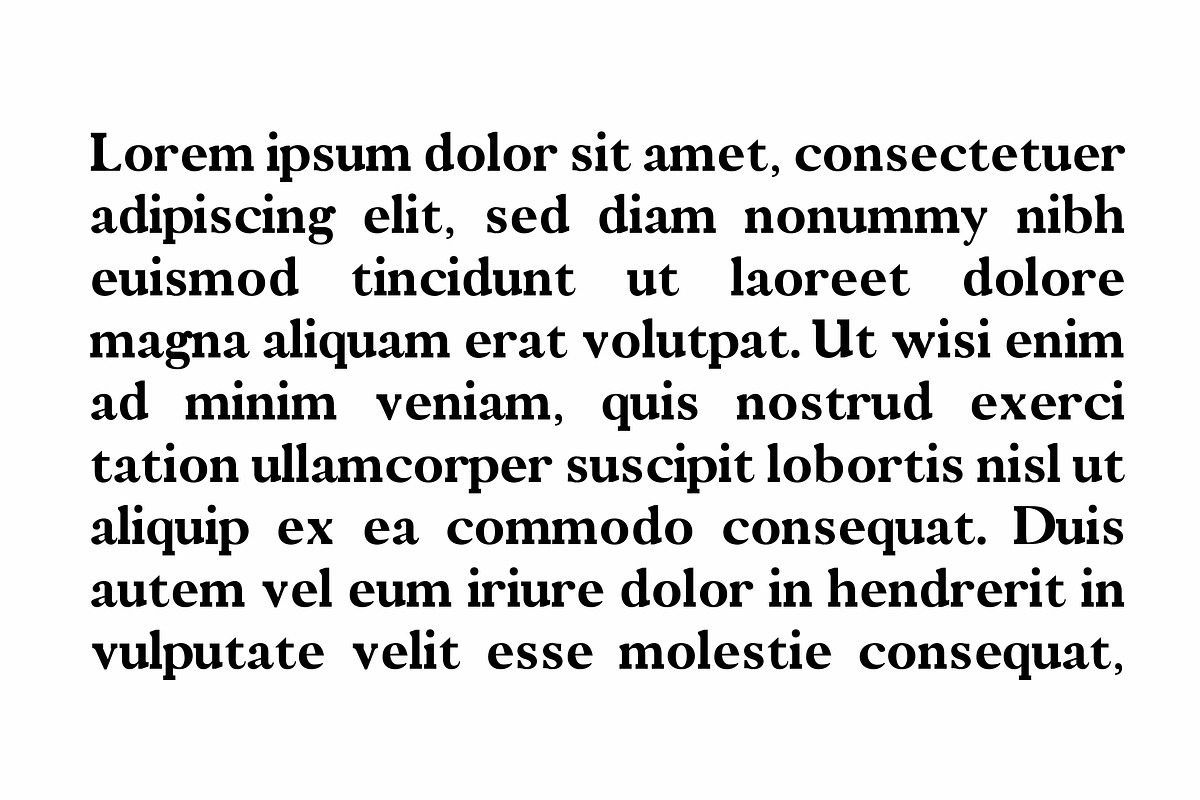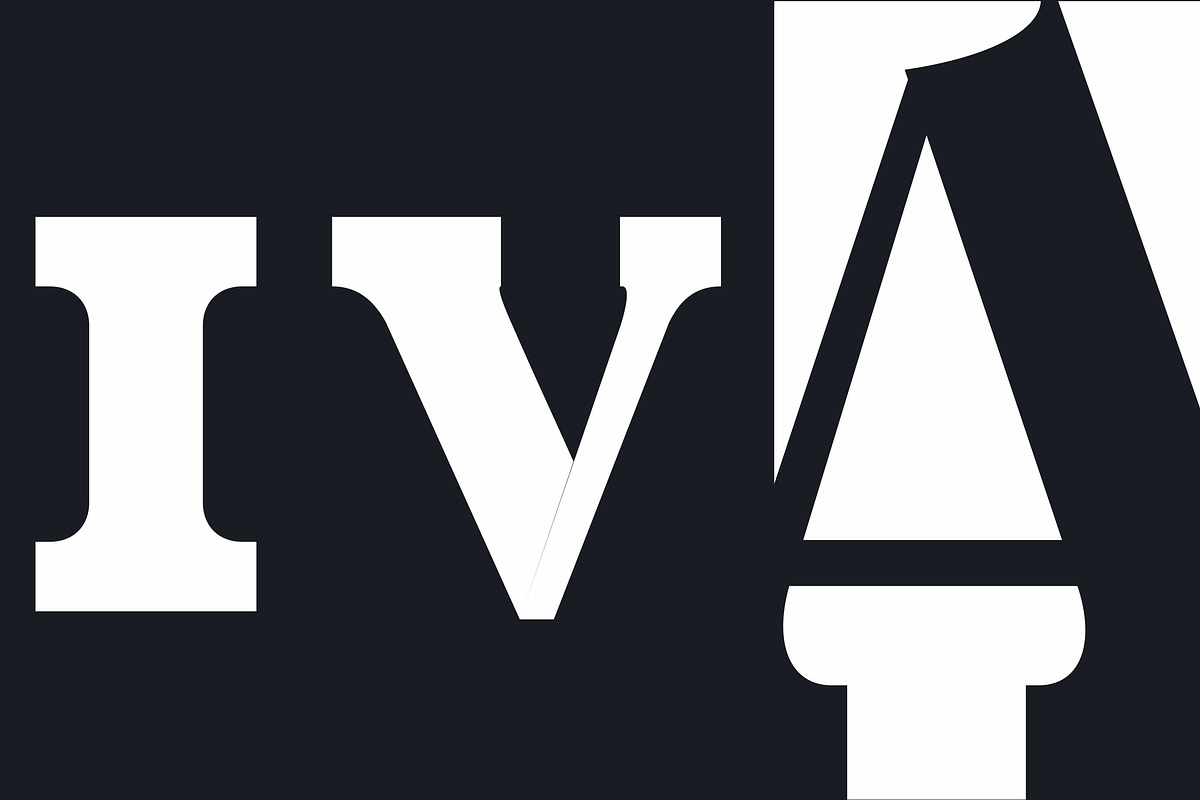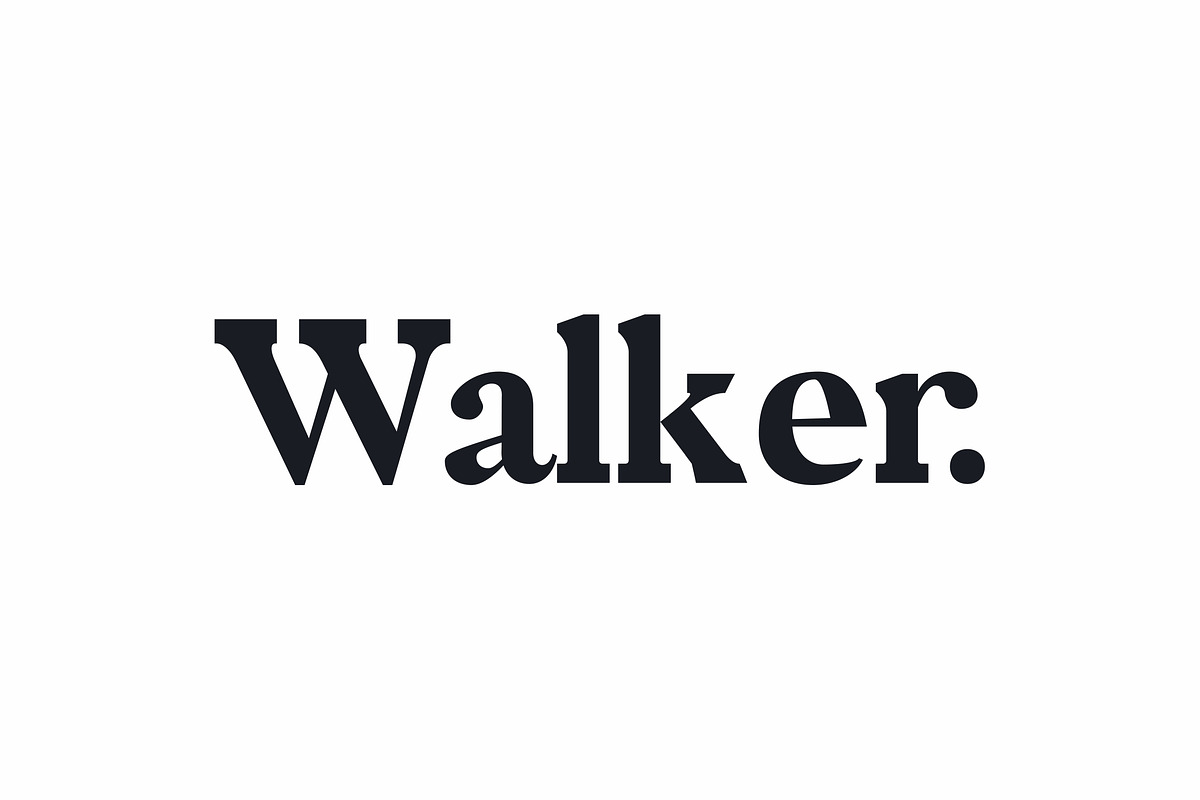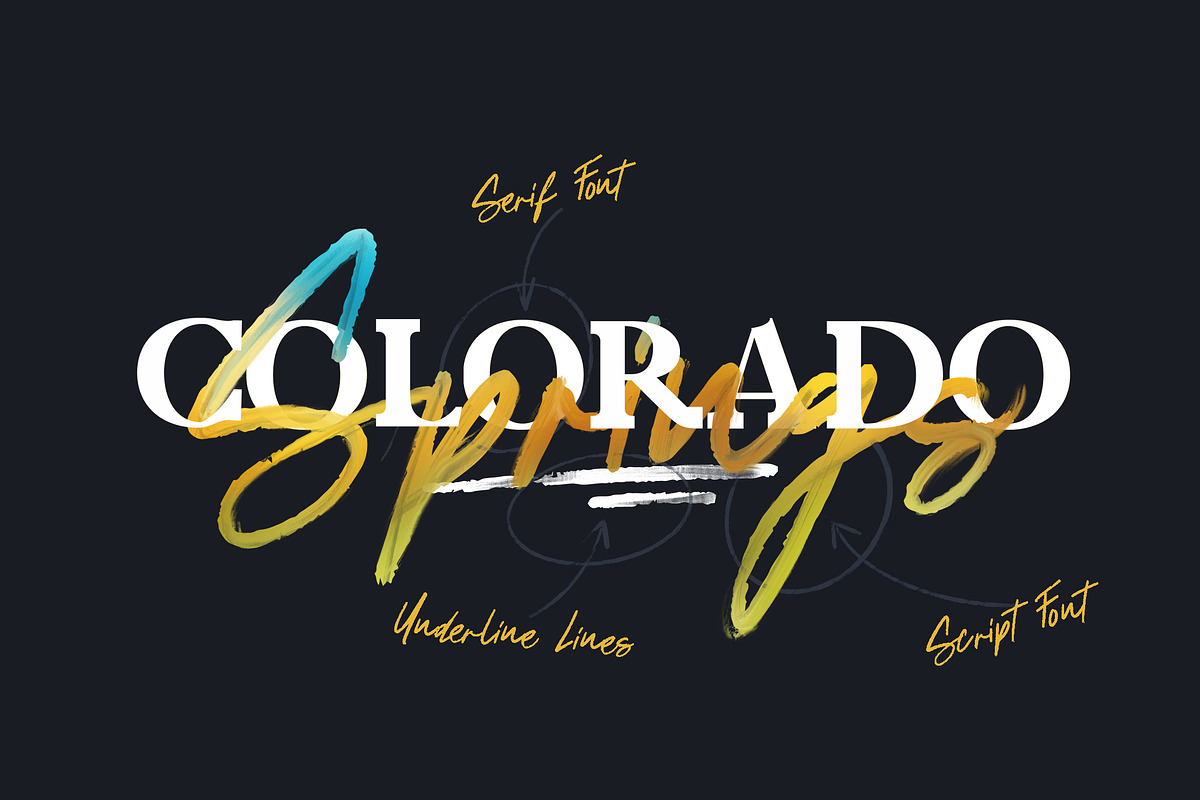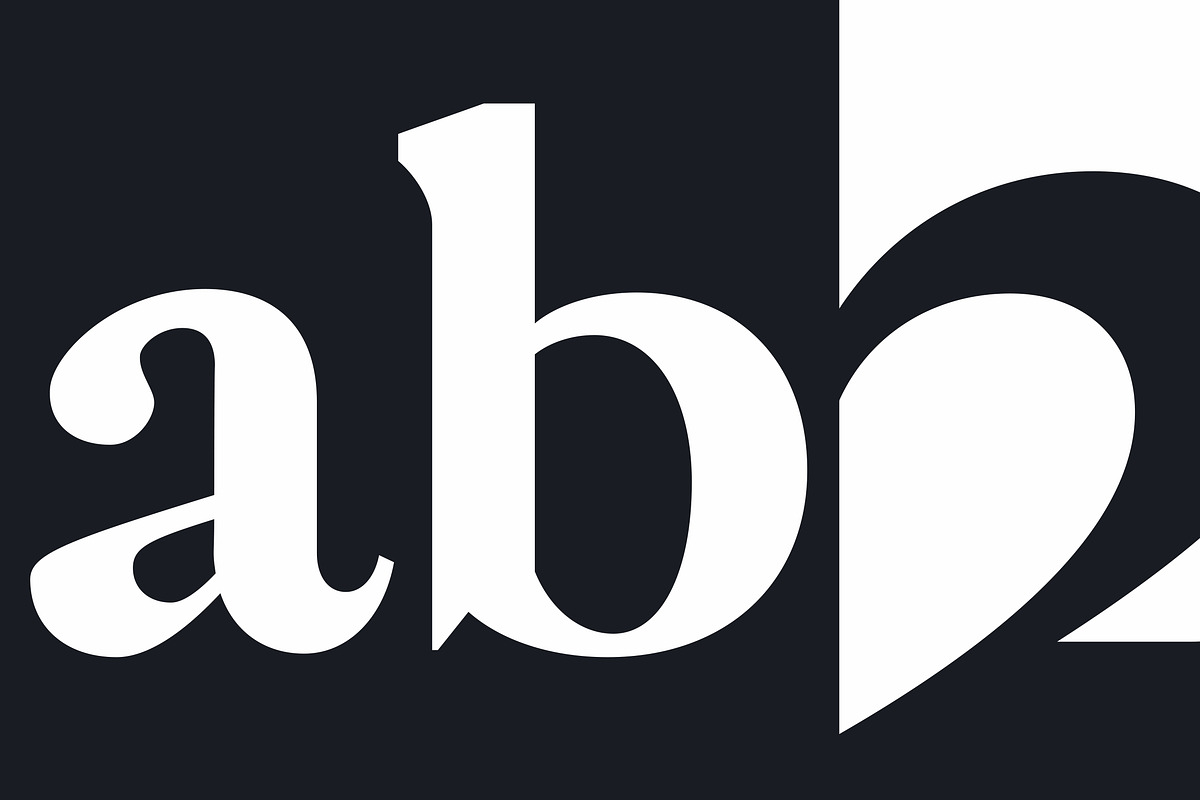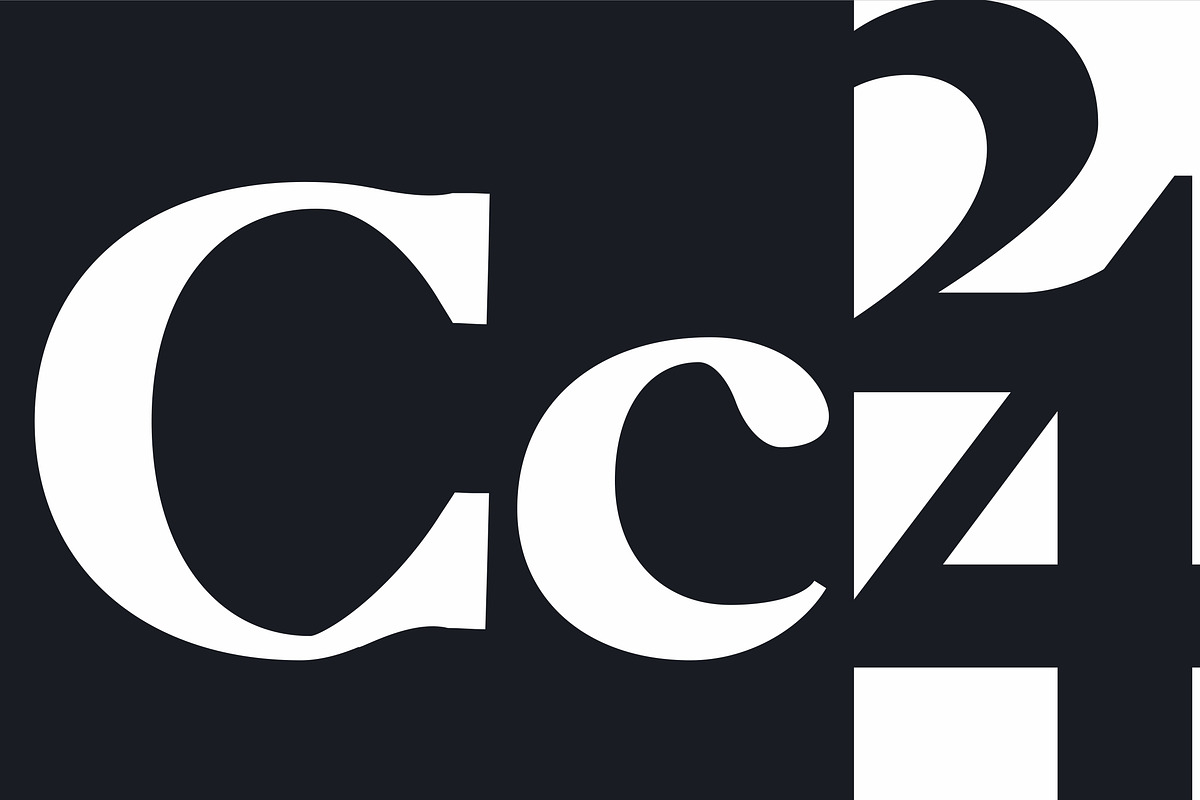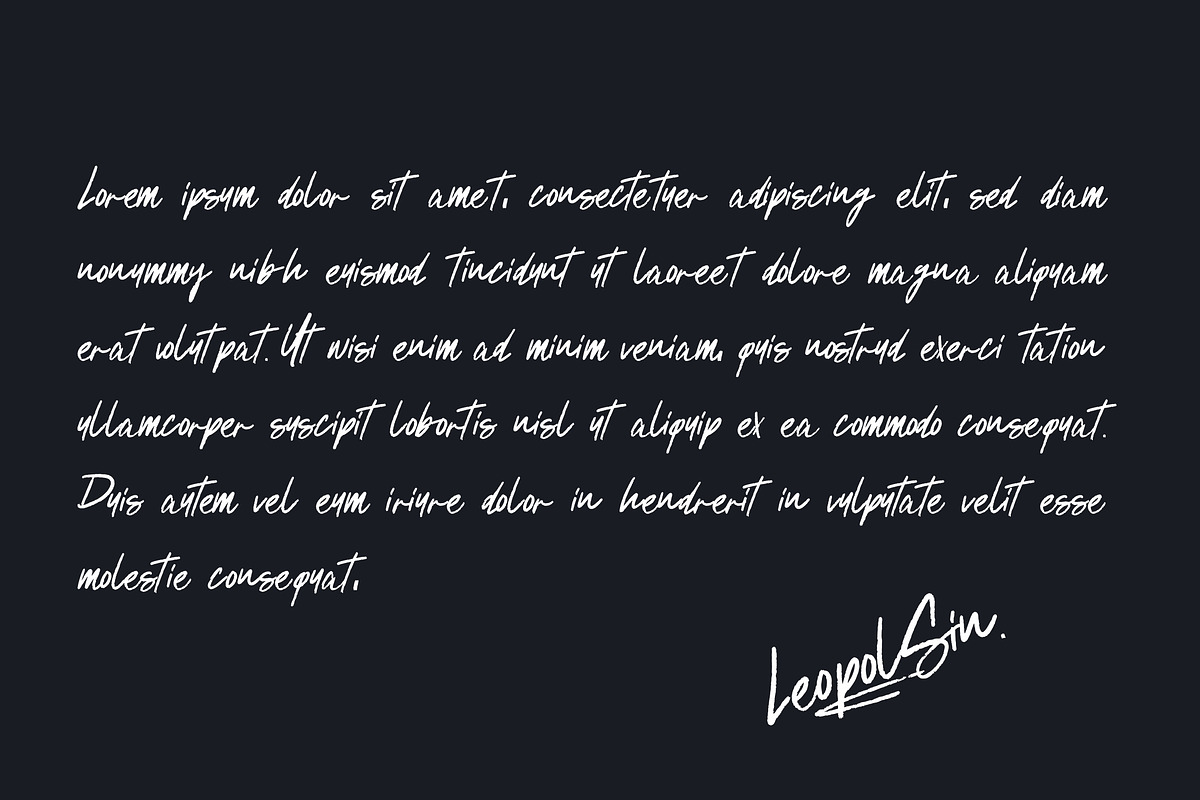
Colorado Springs Font
Colorado Springs is an font duo designed for headlines, titles, posters and book covers . It has his own unique style in expressed perfect condensed forms, inspired by the retro fonts and and strong geometric typefaces that stays in memory once you see them, also set comes with script font included for better stylish combinations.
Colorado Springs is ideal for display text, print and and also for user interfaces, mobile devices, web design and posters, with a set of optimal characters for your design in any layout.
It looks especially great in large scale, although it still carries it at smaller point sizes.
Springs.otf Hand made script font including all uppercase and lowercas eletters which has a complete set of A-Z, and support for US glyphs letters and basic puctions. Combinate uppercase and lowercase letters to get interesting text styles
Colorado Regular.otf Regular retro serif fashioned typeface with a modern touch. Full set of uppercase and lowercase letters, international support, punctuation.
Colorado Regular-Italic.otf Regular ITALIC retro serif fashioned typeface with a modern touch. Full set of uppercase and lowercase letters, international support, punctuation.
SpringsUnderlines.otf Underline swashes and splatters. Use them by typing any letter from A to Z and combinating them with regular letters.
Colorado Springs Font by LeoSupply.co fits naturally into Branding, posters, packaging, typography.